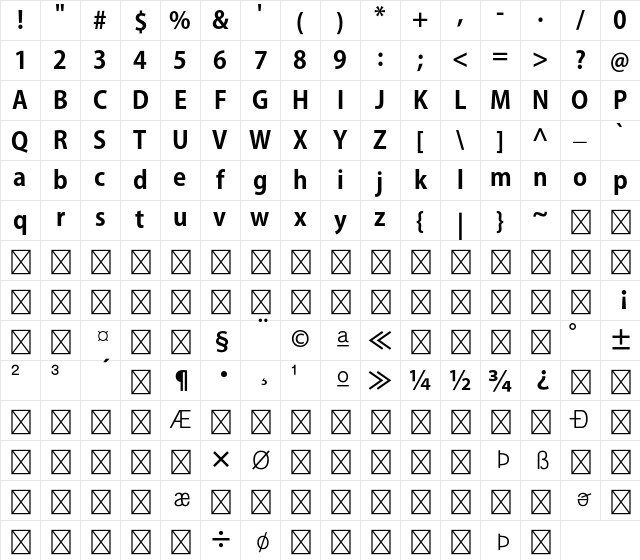
Complete Adobe Gothic Std B Bold glyph index. Displaying only characters natively supported by Adobe Gothic Std B Bold font.
Adobe Gothic Std B takes a clean, functional approach - its unadorned letterforms prioritise legibility and work reliably across screen and print environments. Its bold stroke weight gives it real presence on the page.
Font Pairing: Use Adobe Gothic Std B for headlines alongside a lighter-weight sans or serif for body copy to establish clear visual hierarchy.
Pro Tip: Use Adobe Gothic Std B for UI labels, navigation, and short-form body copy where clean legibility is the priority.